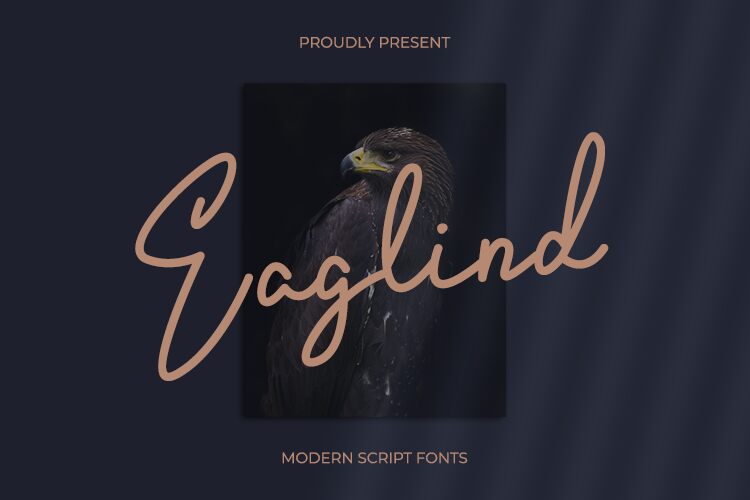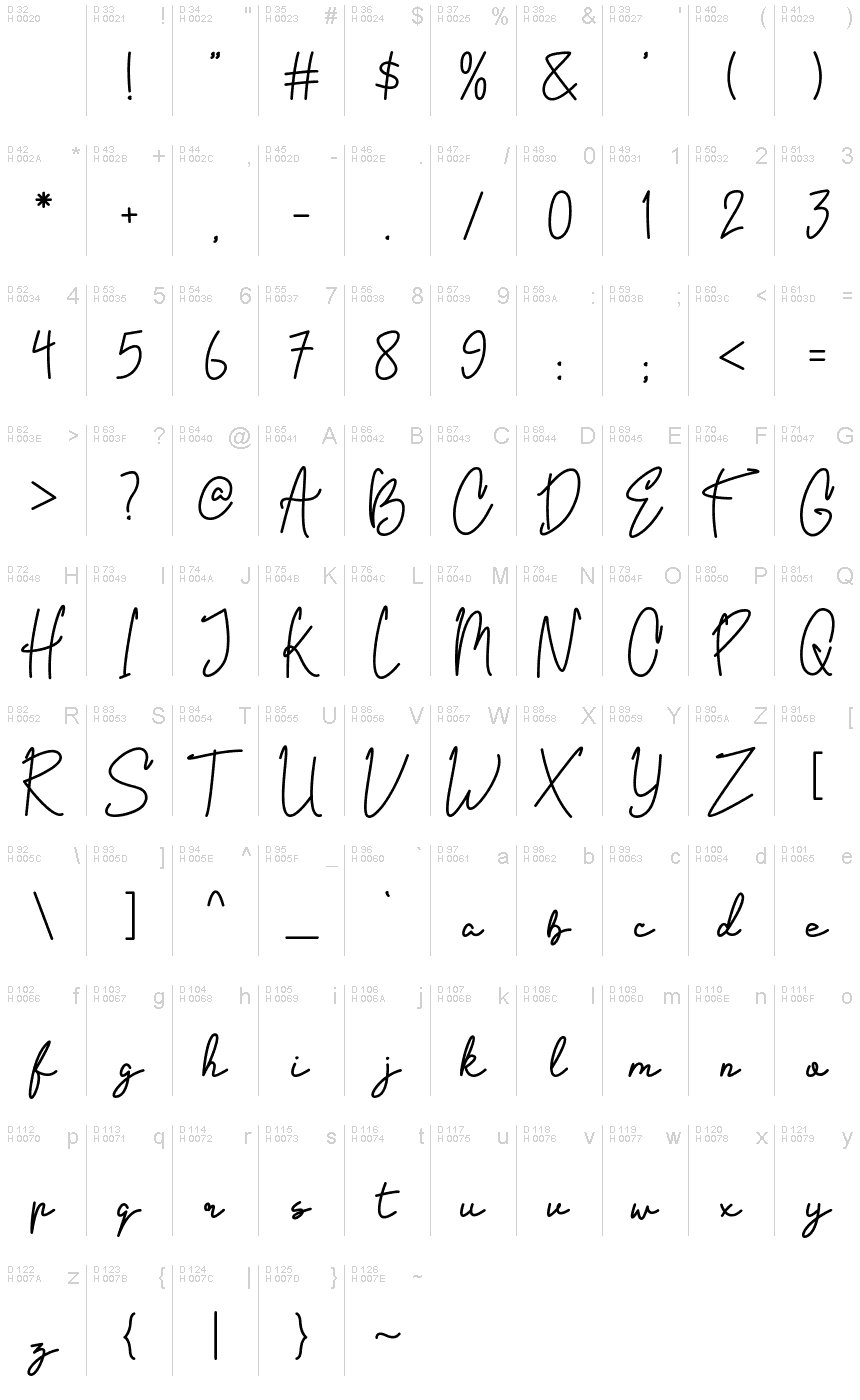
Eaglind
Eaglind is a stunning handwritten font designed by Rangga Putra Budi Pratama. Its light weight gives it a delicate and airy feel, perfect for projects that require a touch of elegance. Eaglind's flowing script style makes it an ideal choice for wedding invitations, greeting cards, and branding materials such as logos or product packaging. Use this unique typeface to add a personal touch to your designs and create an unforgettable impression on your audience. Try Eaglind today and let your creativity soar!